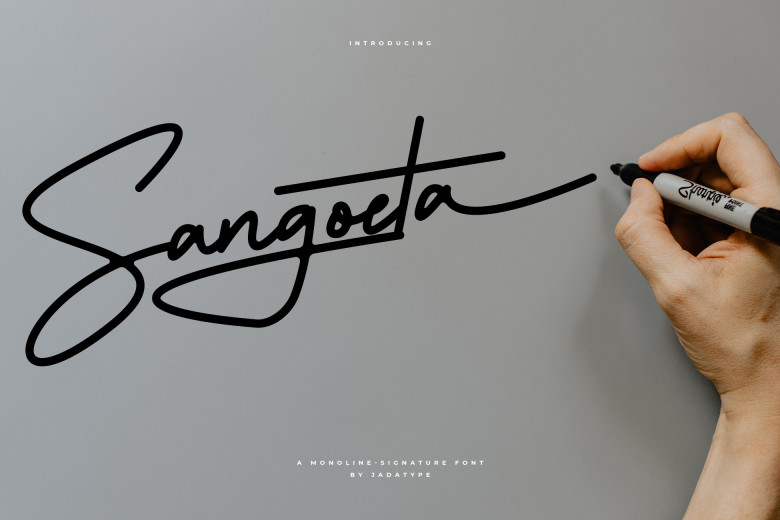
Sangoeta Font
Sangoeta is an exquisite single-line handwritten font ideal for branding posts on social media and product advertisements, creating artworks! Bring this charming font into all of your creative projects to bring out its beauty!
Sangoeta Handwritten Script Font